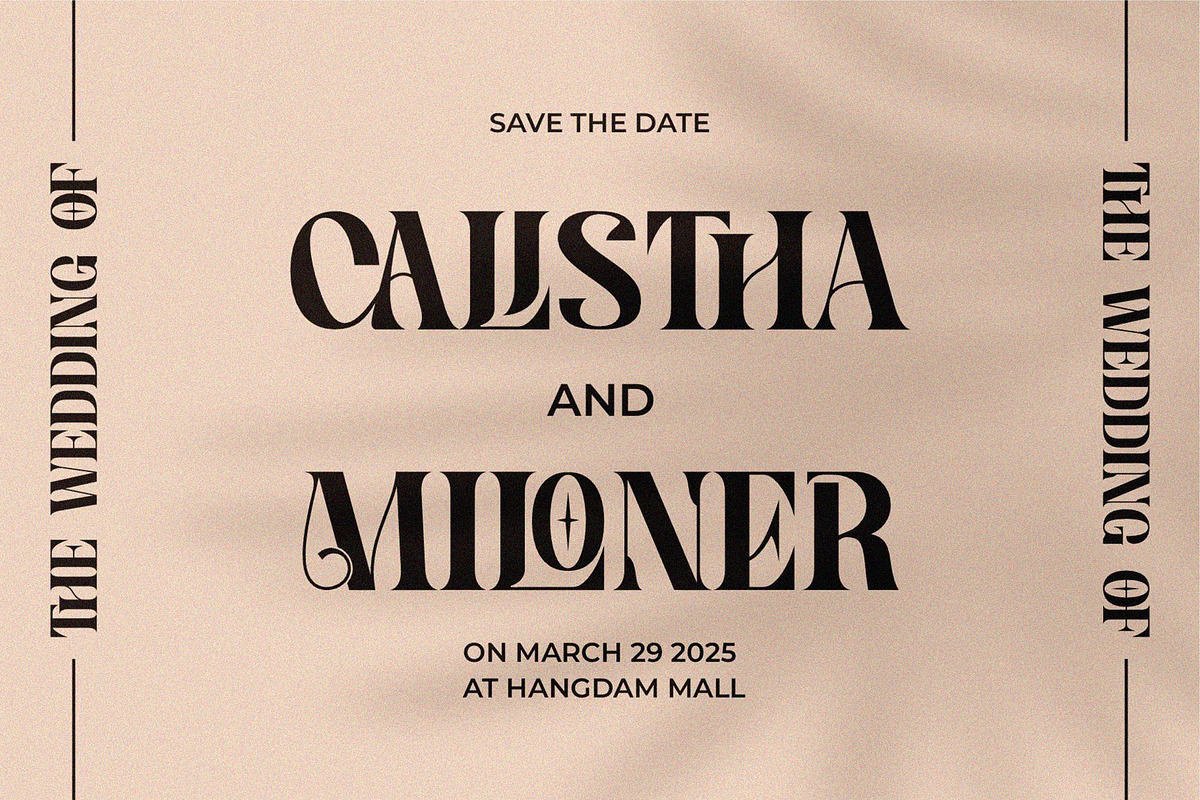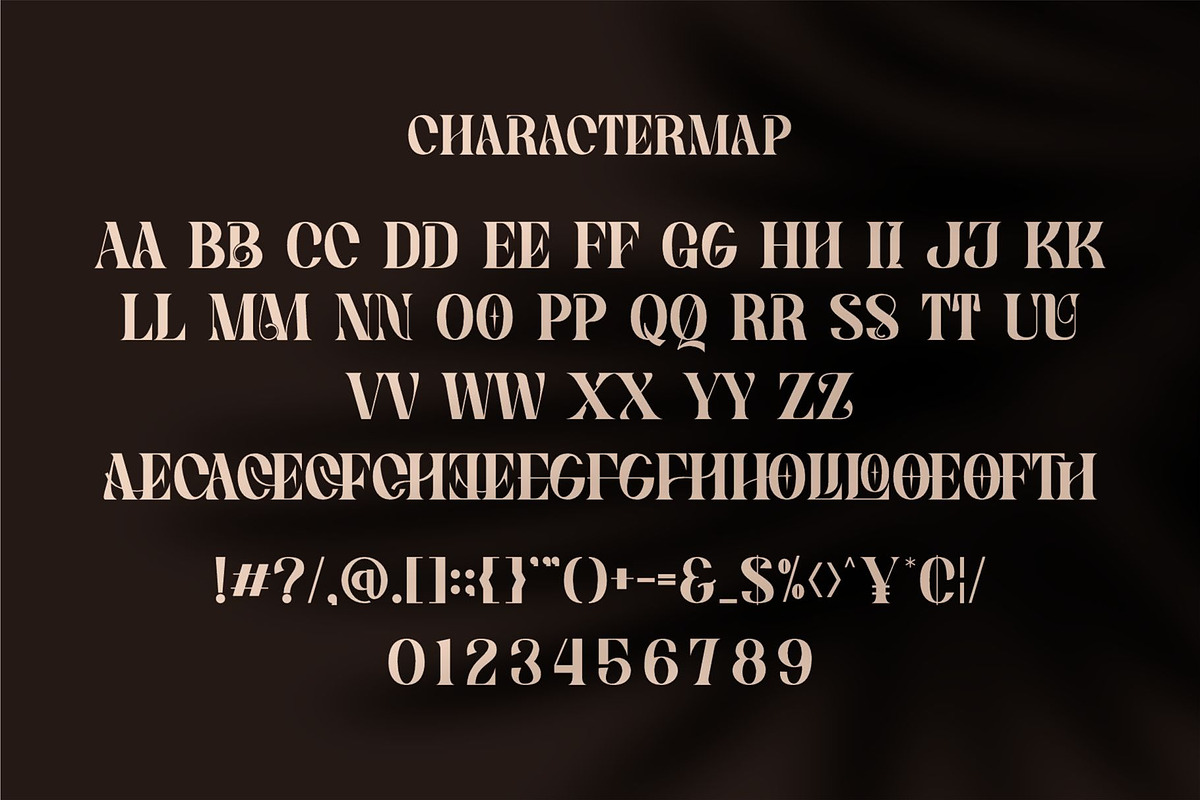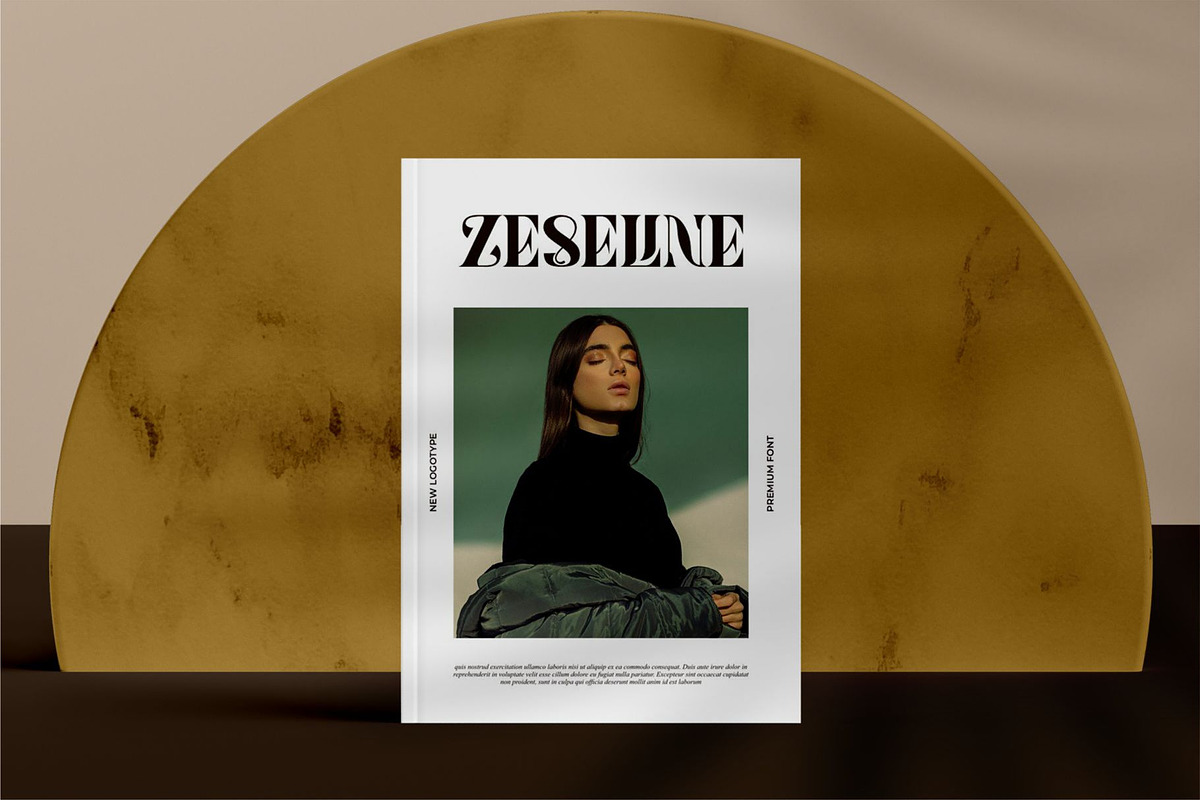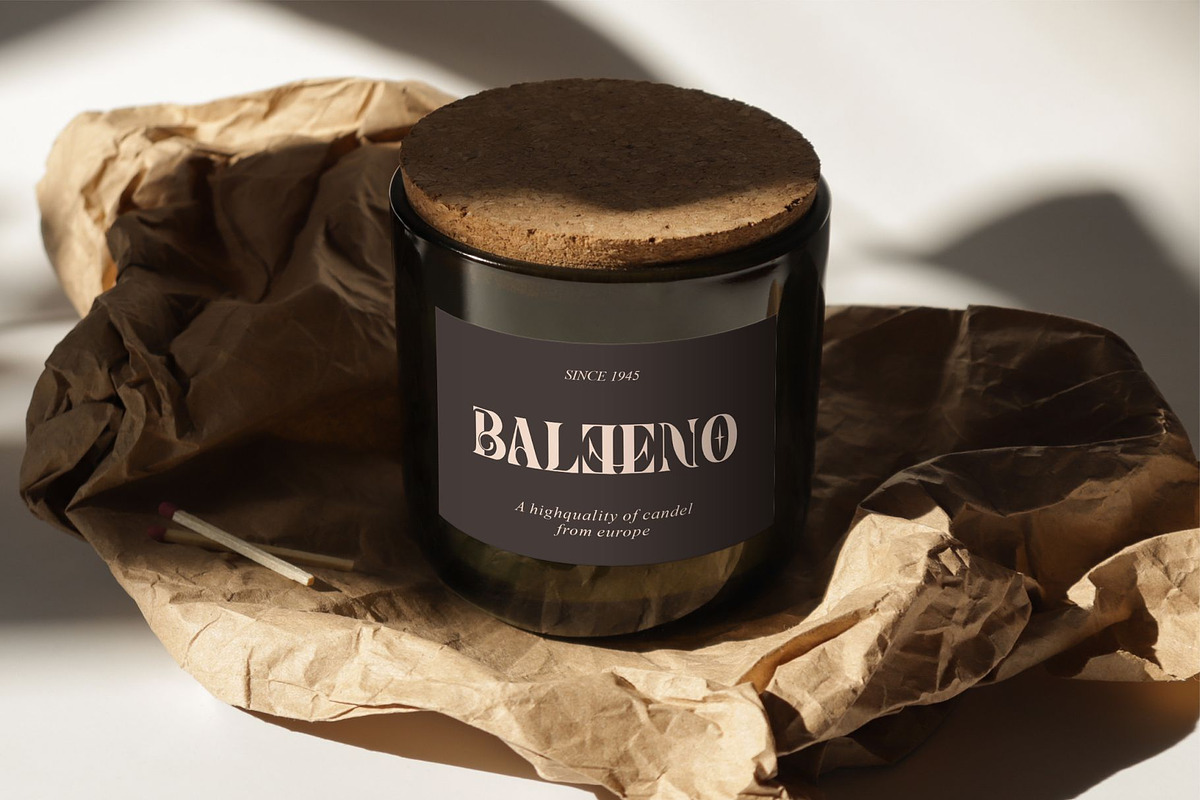
Celona Cameli || Modern Serif Font
Introducing Celona Cameli is modern serif font, trendy, bouncy and cute display font. It has a unique character with wood theme. It is perfect to be combined with invitation card designs, company logos, movie titles, movie names, business cards, book titles, brand names and various other designs.